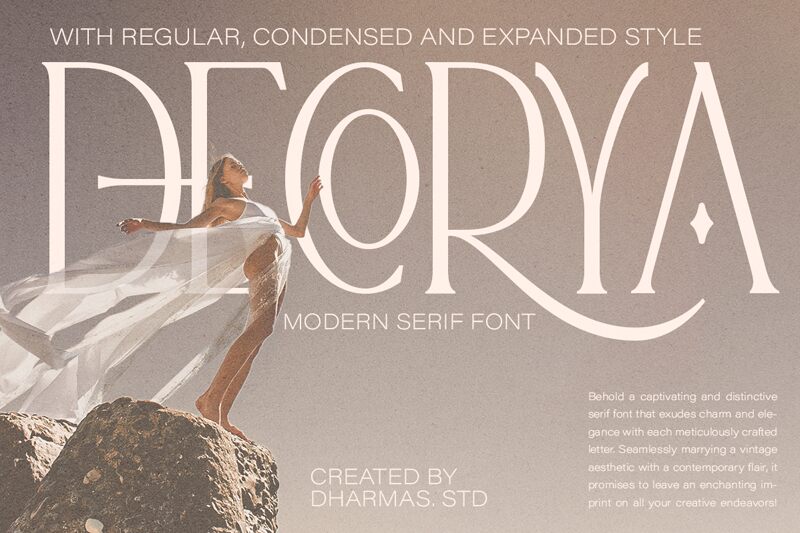
Decorya DEMO Regular
Decorya font by Dharmas Studio is an elegant modern serif designed with refined details. The font projects a sophisticated and professional look which goes hand in hand with its clean lines and neat spacing.